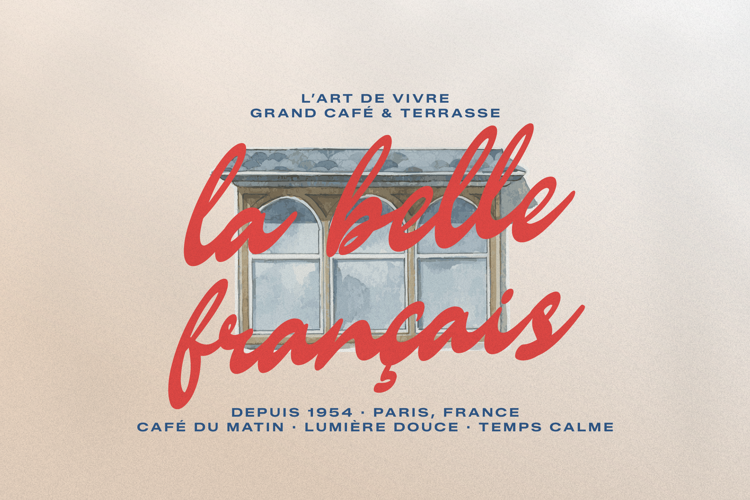
Castellan Solastre Font
Castellan Solastre | Vintage Script is suitable for any projects such as: logos, branding projects, homeware designs, product packaging, mugs, quotes, posters, shopping bags, t-shirts, book covers, name card, invitation cards, greeting cards, label, photography, watermark, special events, and all your other lovely projects that need a Script taste.